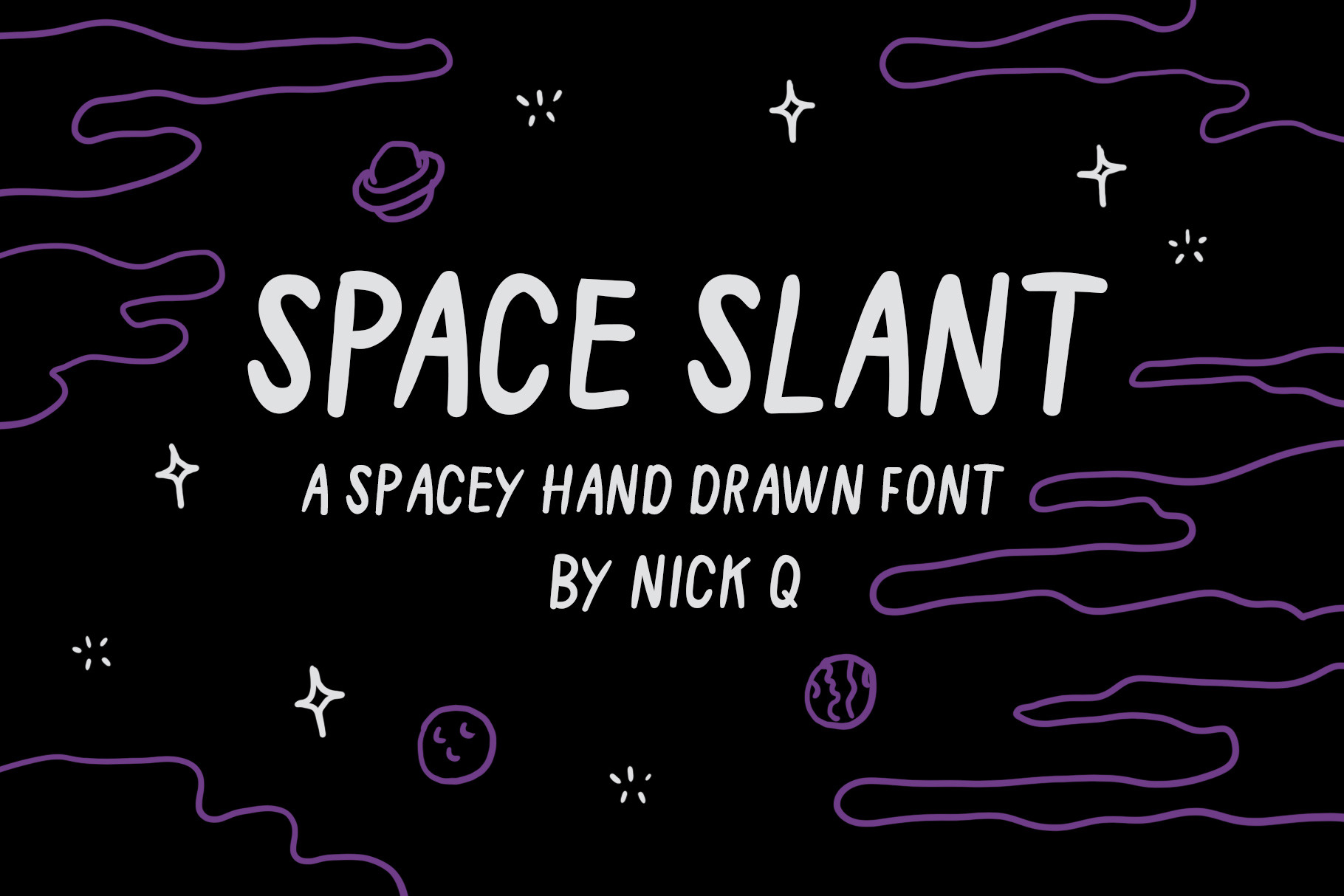
Space Slant Hand Drawn Font
Need a quick hand drawn element to your design? Get to your end results faster with my hand drawn font Space Slant!
Perfect for posters, backing cards, band merch and more!